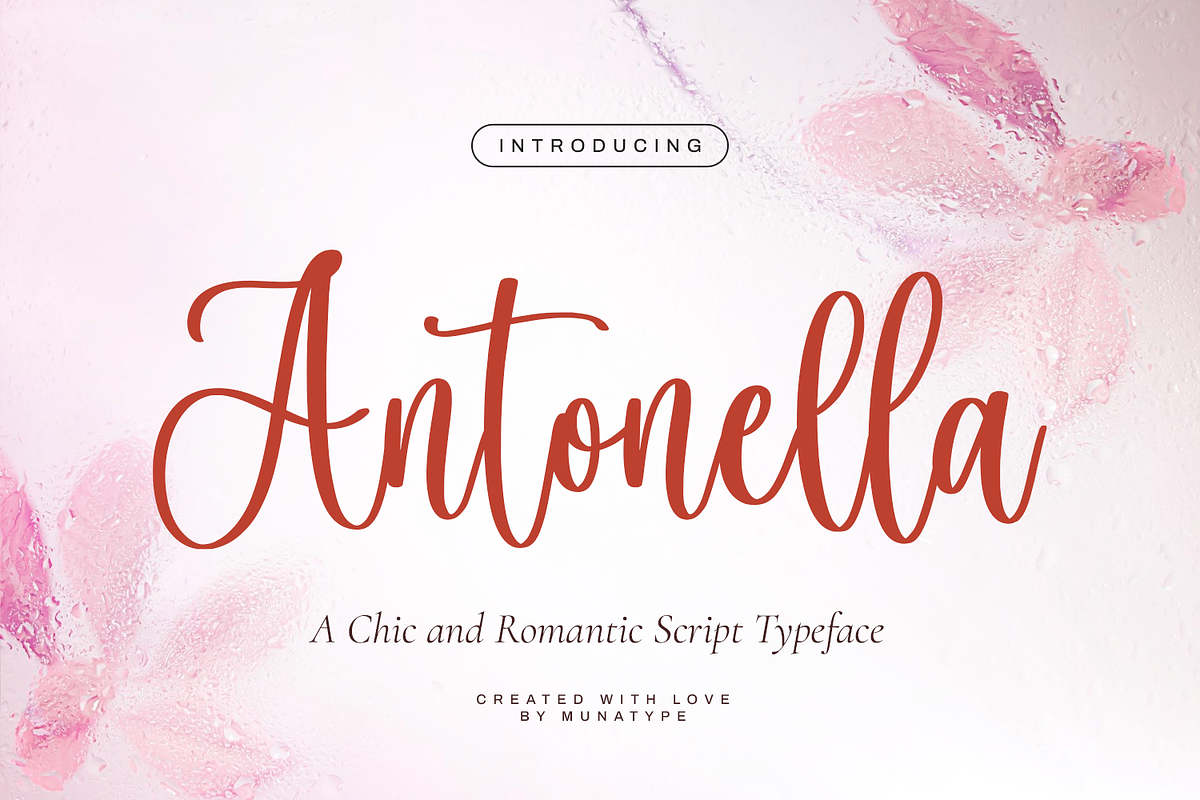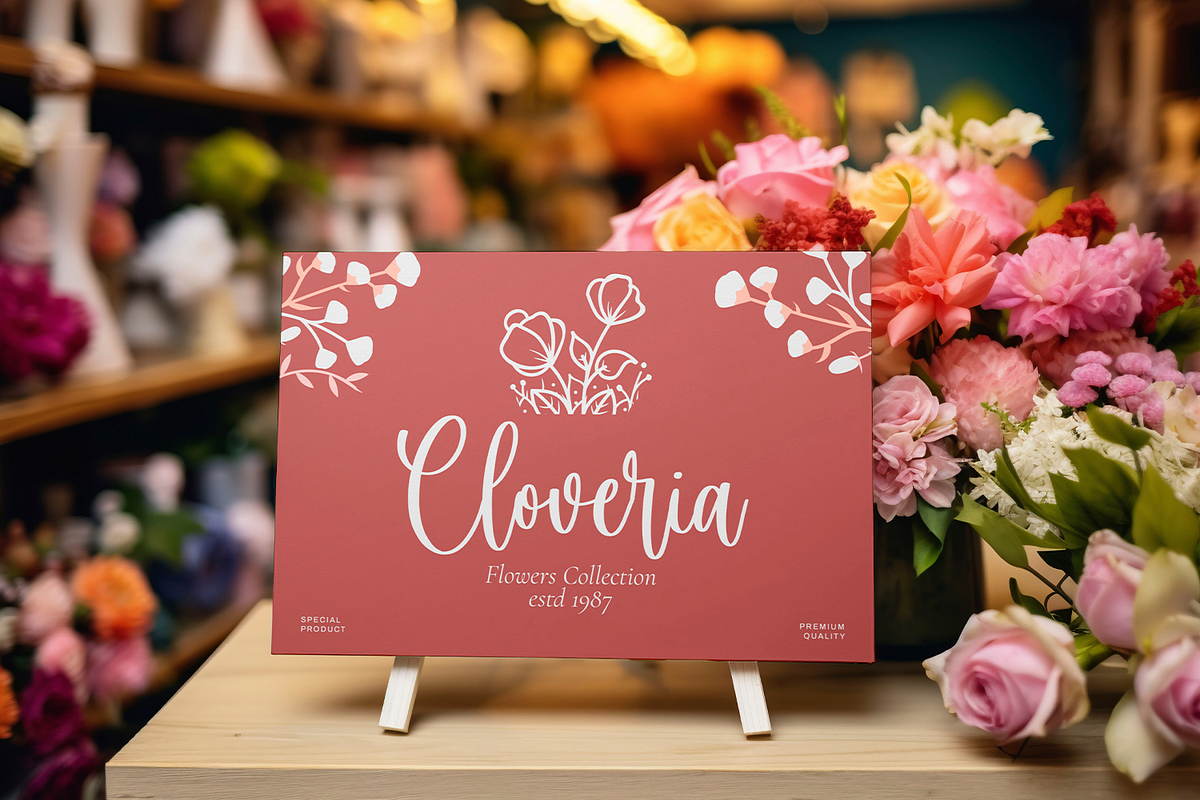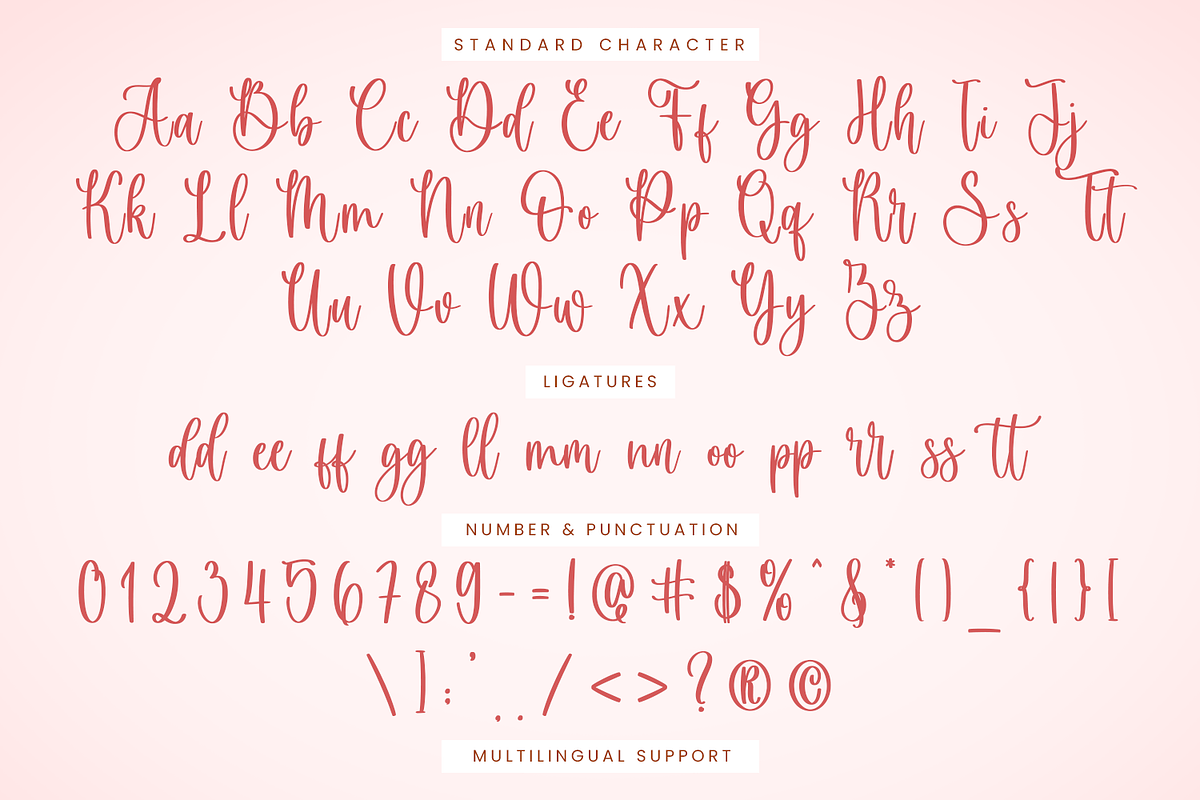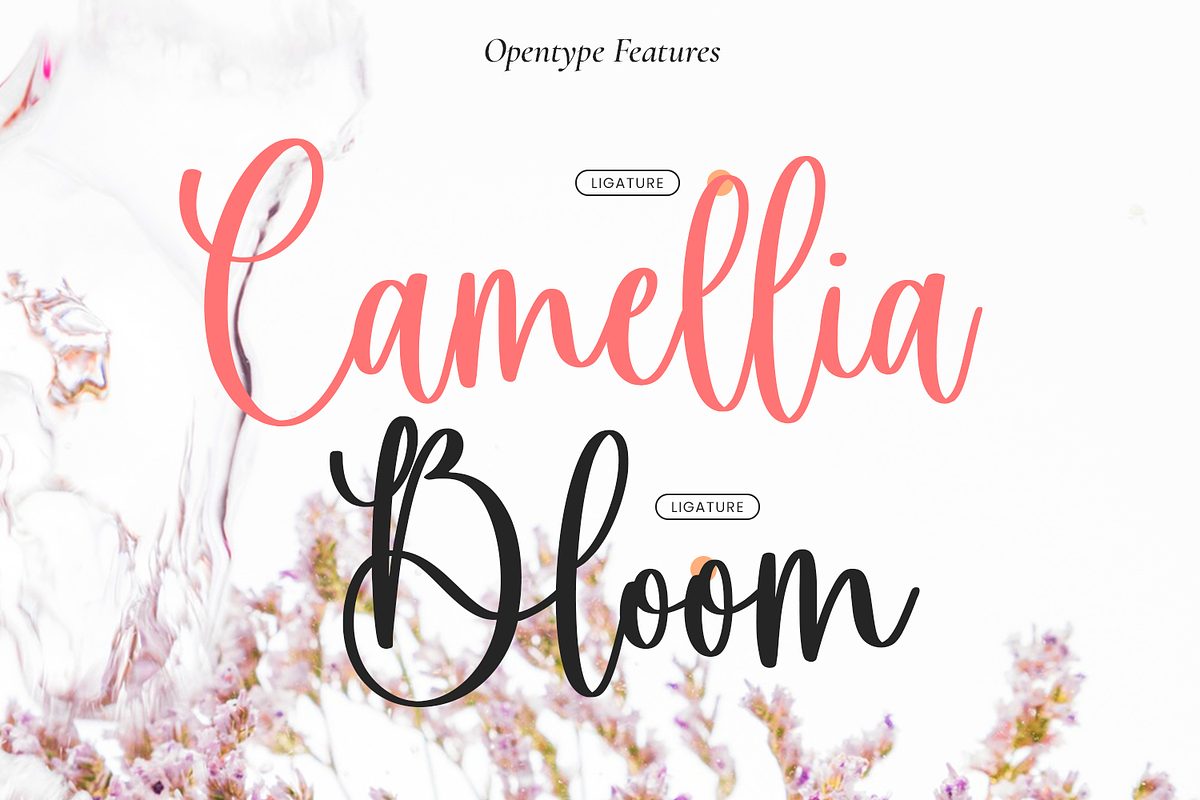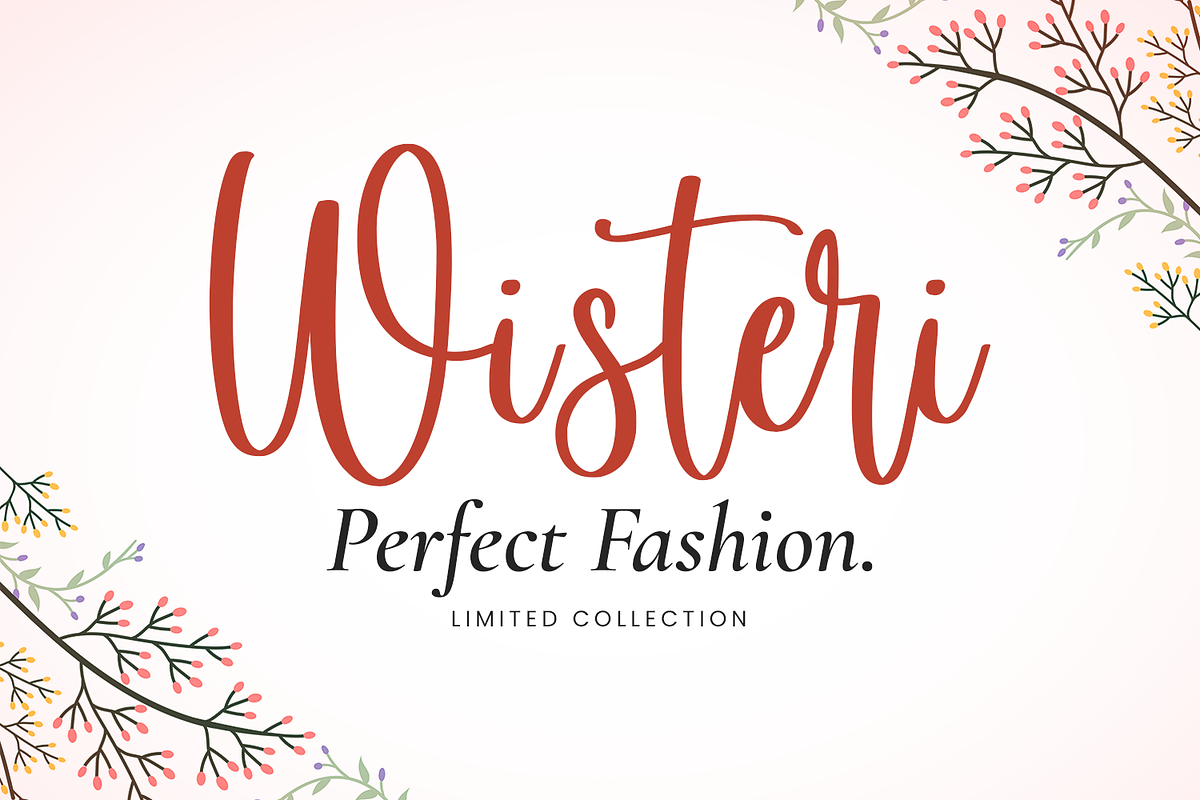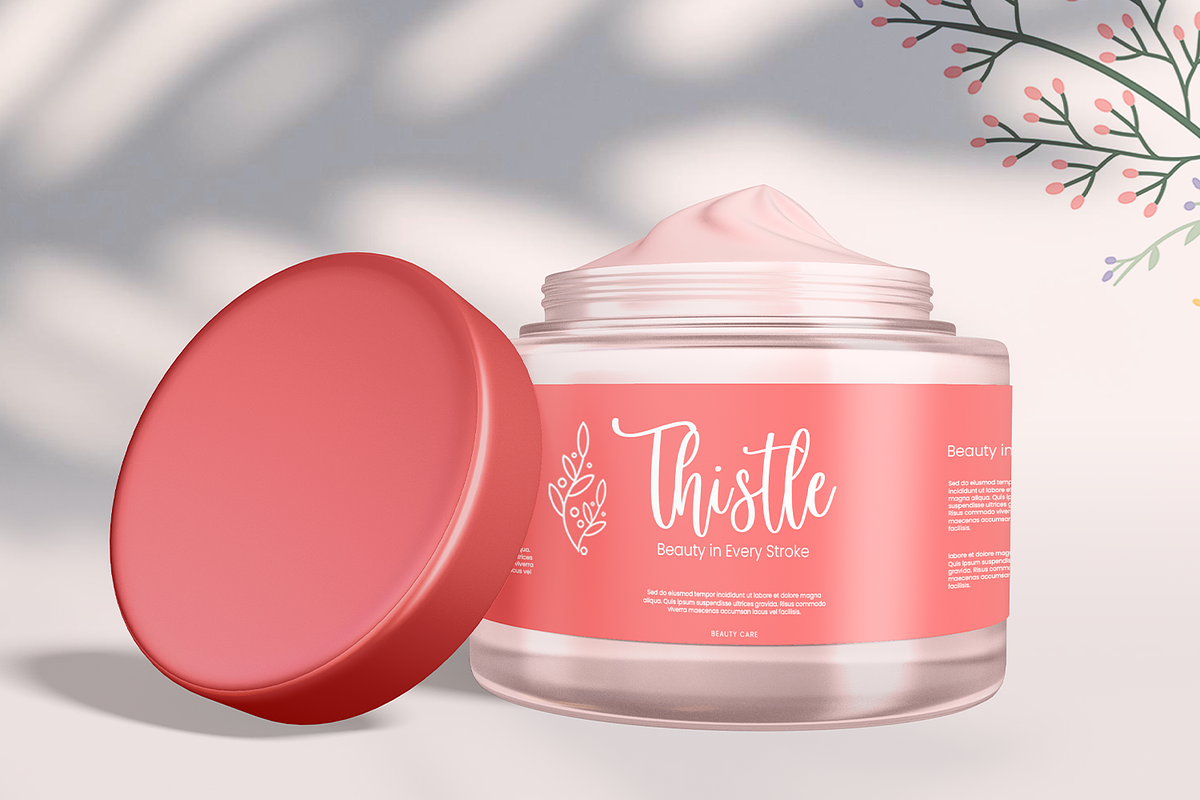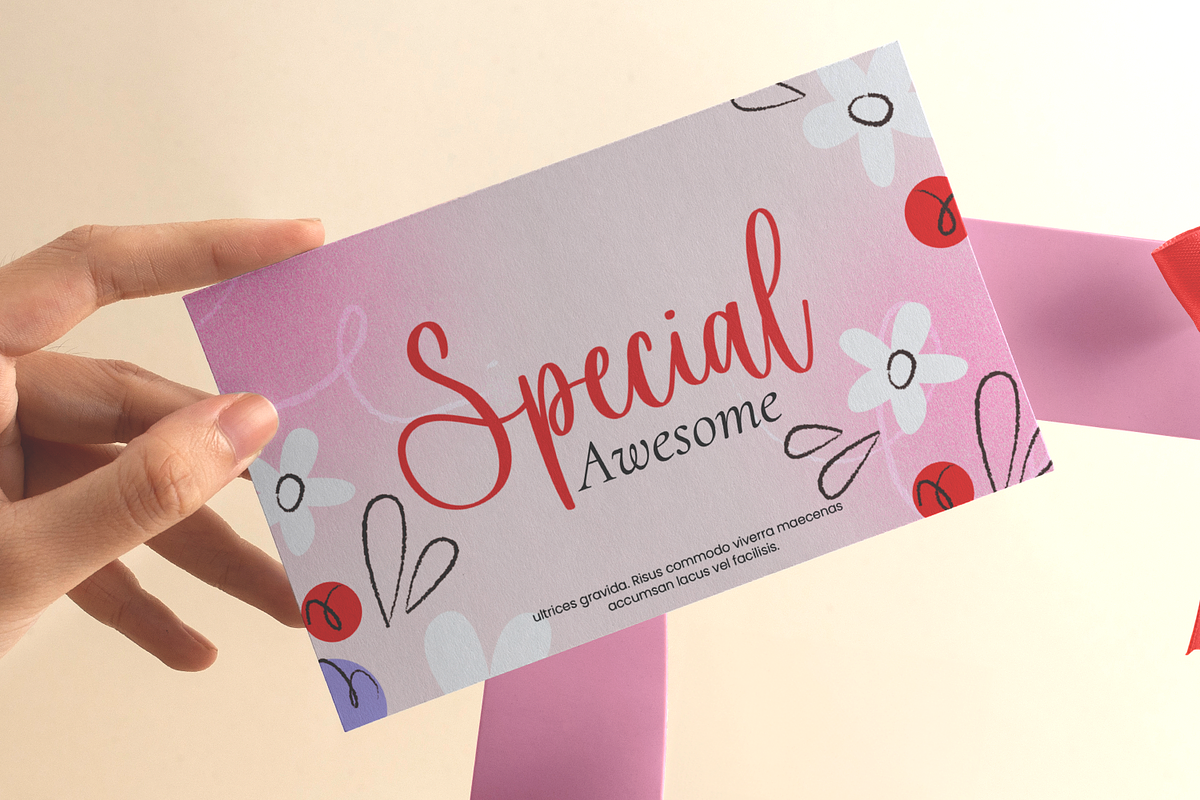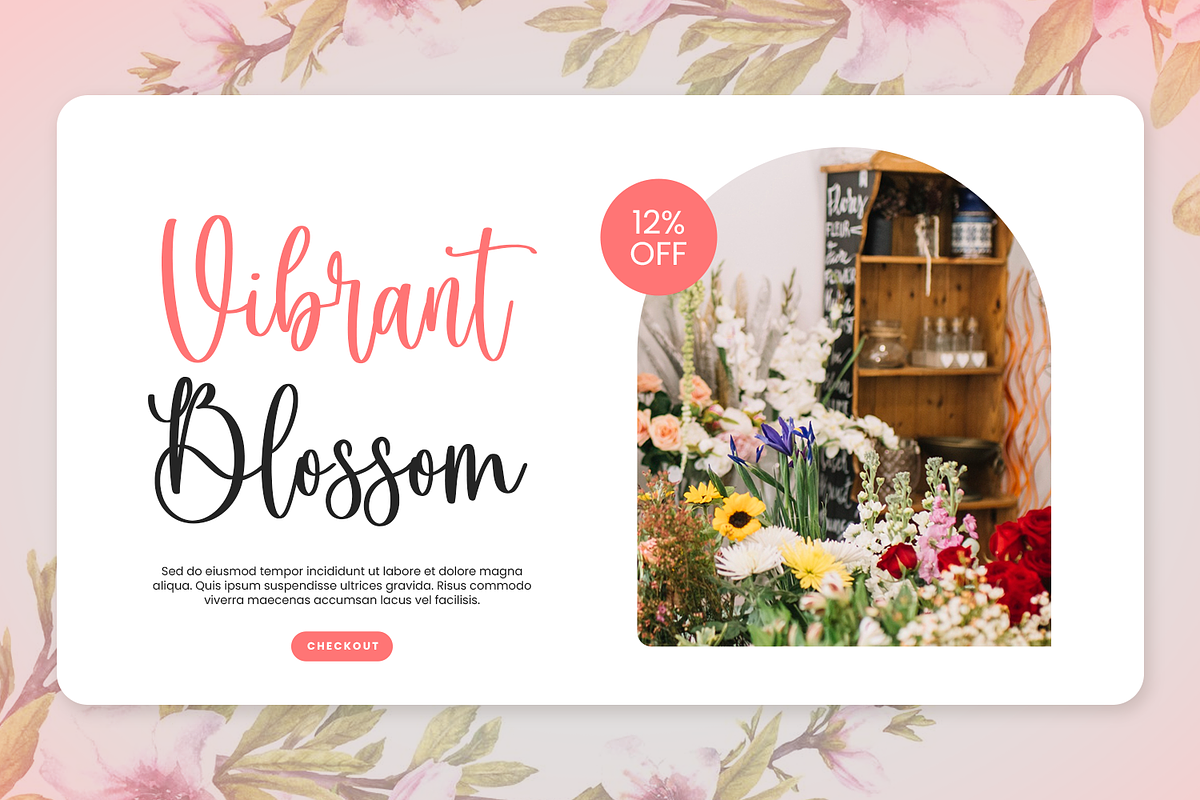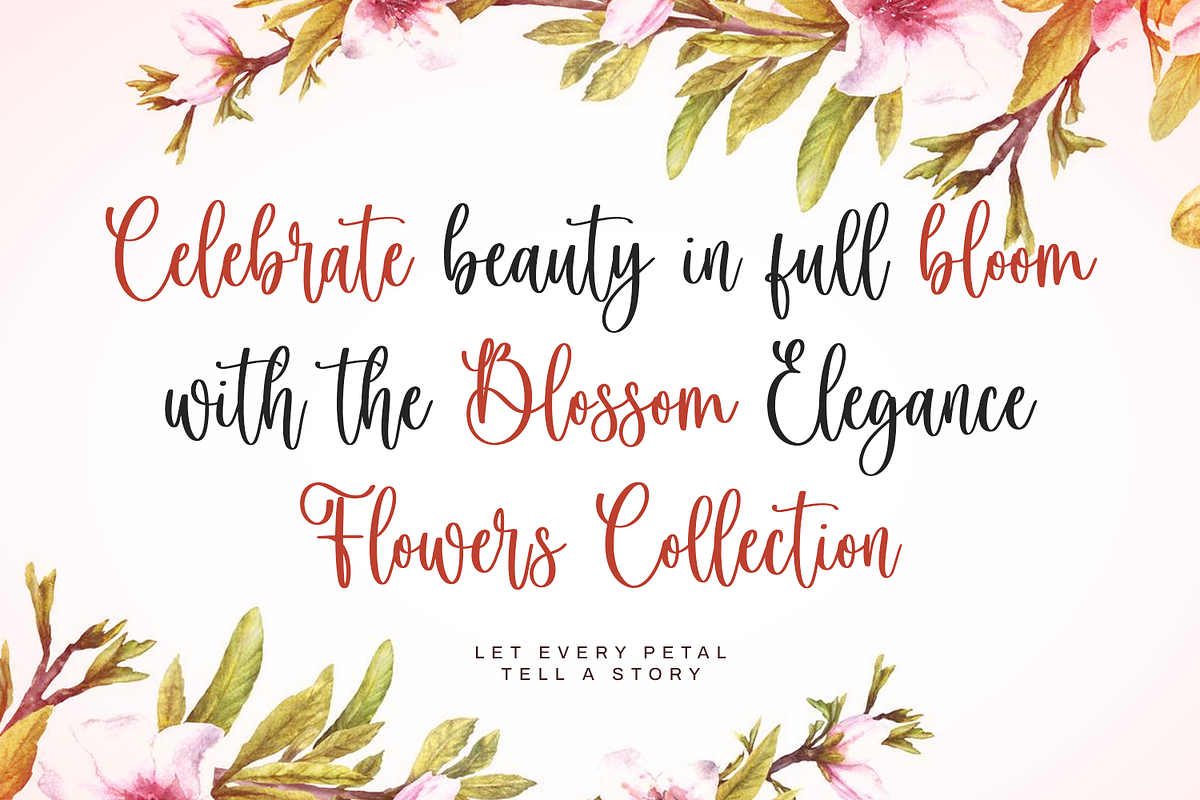
Antonella - Wedding Font
Introducing Antonella, a stunning script handwritten font designed to elevate your most special designs. With its graceful curves and flowing strokes, Antonella captures the heartfelt emotion and charm perfect for wedding invitations, birthday cards, Easter crafts, Thanksgiving menus, and Christmas decorations.
It’s the ideal companion for projects that require a soft and beautifully hand-crafted touch. Celebrate life’s most cherished moments with elegance and warmth. Whether it’s a wedding, birthday, or holiday craft, the right font can bring your creative vision to life.
Each character in Antonella comes to life with beginning and ending swash tails, adding a stylish flair that feels both romantic and whimsical. These elegant tails allow for dynamic and fluid lettering that’s perfect for Cricut projects, embroidery designs, and personalized gifts. Whether you’re crafting something intimate or festive, Antonella adapts effortlessly to the mood of the season—spring, summer, autumn, or winter.
Antonella is loaded with alternates and swashes for many characters, giving you the freedom to mix and match styles and create a truly custom look. From graceful flourishes to subtle swoops, every detail is designed with versatility and creativity in mind. It’s especially perfect for crafters and designers who love making unique, heartfelt items.
Use Antonella for greeting cards, branding, home décor quotes, or digital SVG projects that need a touch of charm. Its handcrafted feel makes it an excellent choice for lettering artists and craft lovers looking to add personality and beauty to their work.